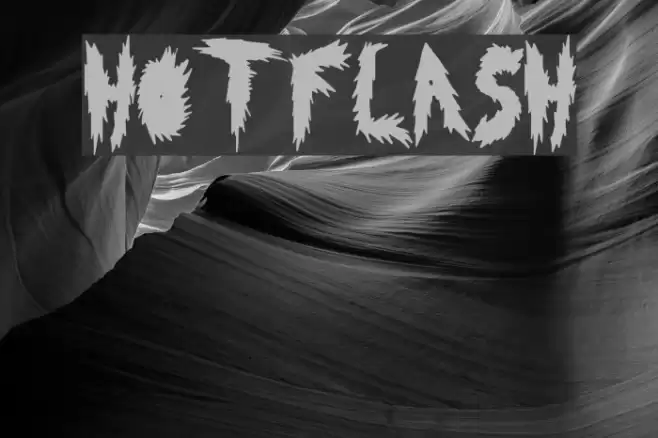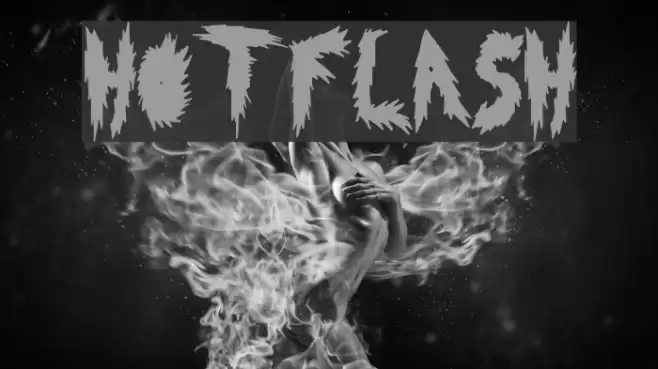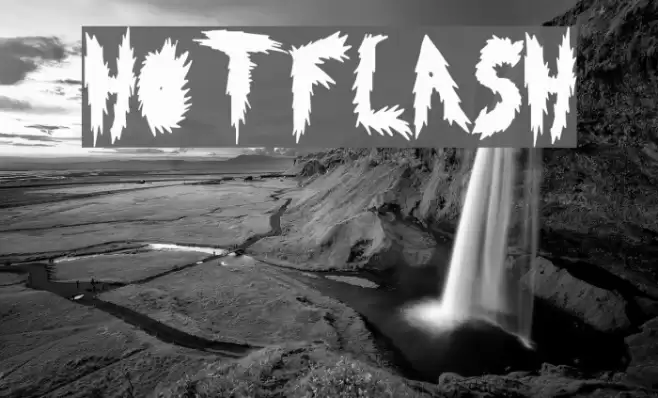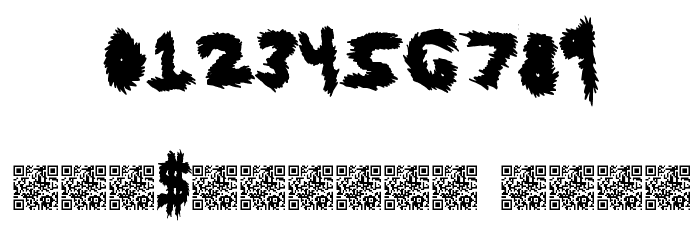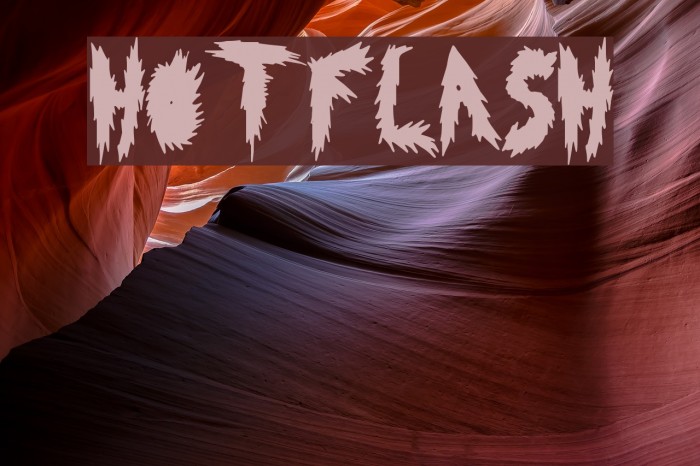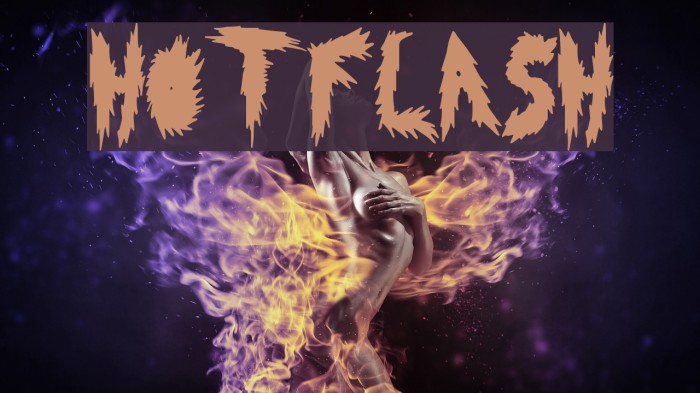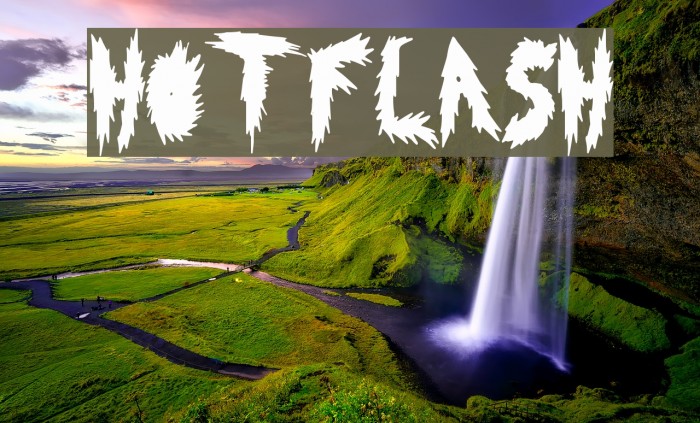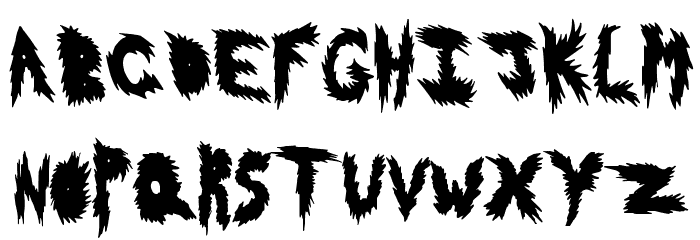
HotFlash Font
HotFlash Description
This font features a bold, jagged design that resembles flames or bursts of energy, giving it a dynamic and intense appearance. The characters are highly stylized with sharp, irregular edges that create a sense of movement and excitement. This font is perfect for grabbing attention and conveying a sense of urgency or intensity. The uppercase and lowercase letters maintain a consistent style, ensuring readability while still delivering a dramatic visual impact. The numbers and special characters are equally bold and maintain the same energetic style, making them suitable for a variety of creative projects.
A bold, jagged font with a fiery, energetic design from Uncategorized fonts.
- Proposed Projects: Ideal for Halloween-themed designs, music album covers, extreme sports branding, or any project needing a bold, eye-catching typeface.